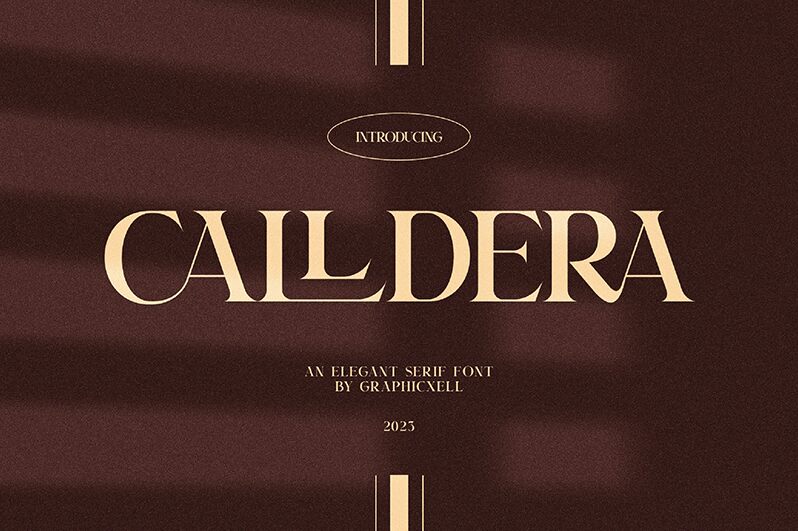
Calldera font by Graphicxell is a free serif font with a luxurious, sophisticated look. It balances modern elegance with a classic influence for a high-fashion appeal that would lend itself well to a variety of projects. Its platform versatility allows it to bridge physical and digital designs, all sharing a distinguished, refined aesthetic.
Use this font in branding identity in the form of logos and labels or in product design such as package designs. The font can also be used in a number of online projects, from web pages to social media posts. Finally, print publications such as brochures, catalogs, and magazines will benefit from the sophisticated, refined look of Calldera font.